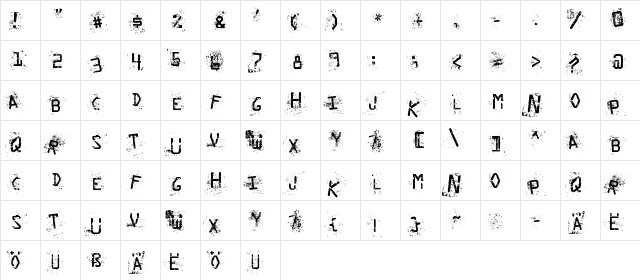
Staubiges Vergn?gen Zieh!
Design Context for Staubiges Vergn?gen Typeface
Staubiges Vergn?gen is a composed and adaptable typeface that performs quietly and consistently across a wide range of design contexts.